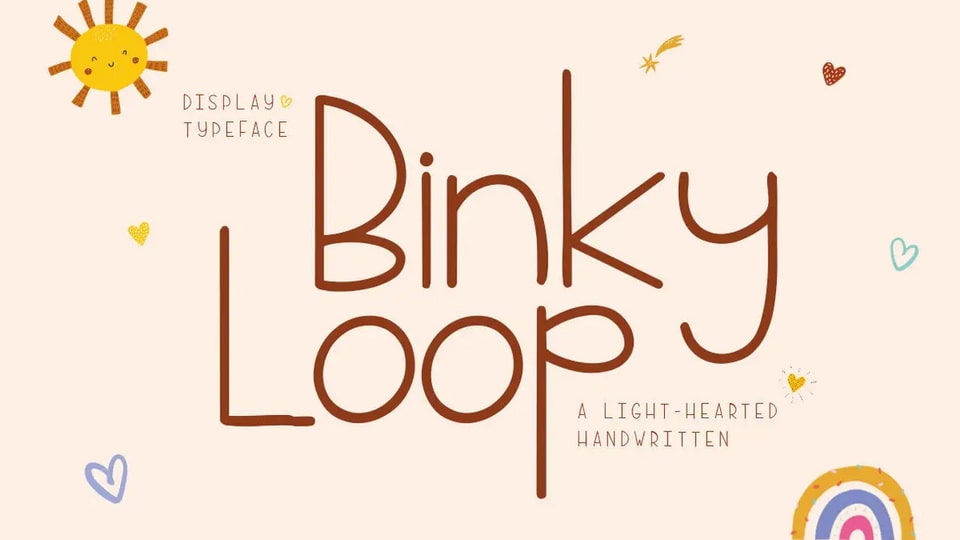
Download Binky Loop font, a delightful handcrafted typeface full of charm and character with its smooth loops, clean lines, and playful handwritten style.